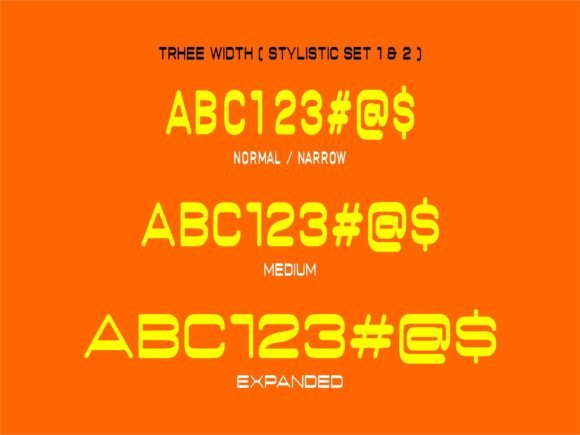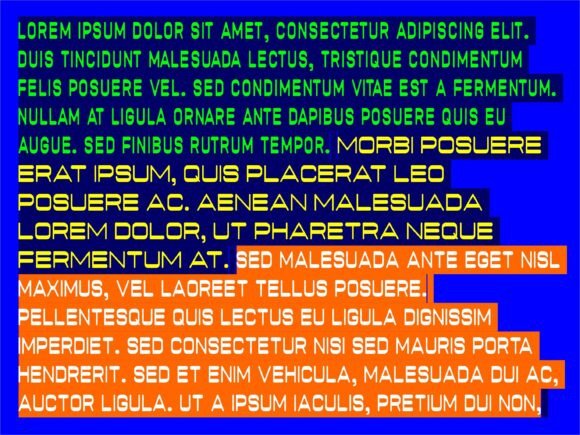
Introducing Embrance Font: Elevate Your Designs with Modern Flair
In the world of typography, fonts play a crucial role in conveying messages, expressing creativity, and setting the tone for a brand or project. For designers, crafters, and anyone looking to make a statement, Embrance Font is an exciting addition to the realm of modern display fonts. With its clean, stylish look, and versatile multiple widths, Embrance is poised to revolutionize the way we approach headlines, posters, and creative projects.
The Essence of Embrance Font
Embrance Font is a contemporary display font designed to make an impact. Its sleek, modern aesthetic is perfect for those seeking to infuse their projects with a fresh, cutting-edge vibe. The font’s design is characterized by its clean lines, stylish curves, and a well-balanced structure that exudes professionalism and sophistication.
Multiple Widths, Endless Possibilities
What sets Embrance Font apart from other display fonts is its range of multiple widths. This feature allows designers to experiment with various layouts, explore different creative avenues, and express their ideas in unique and innovative ways. Whether you’re crafting a bold headline, designing a captivating poster, or developing a cohesive brand identity, Embrance Font offers the flexibility to adapt to your vision.
Perfect for Headlines and Posters
Embrance Font is specifically designed to shine in applications where visual impact is paramount. Its clean and stylish look makes it an ideal choice for headlines, where clarity and readability are essential. Additionally, the font’s modern aesthetic and range of widths ensure that your posters will stand out, grabbing the attention of your audience and leaving a lasting impression.
Unlocking Creative Potential
For designers and crafters, Embrance Font is more than just a typeface – it’s a tool for unlocking creative potential. With Embrance, you can:
- Experiment with different widths to create visually striking compositions
- Pair Embrance with other fonts to develop a unique typographic style
- Use Embrance to add a modern touch to your brand identity or packaging design
- Create stunning posters, flyers, and brochures that capture attention
Why Choose Embrance Font?
In a crowded marketplace, Embrance Font stands out for several reasons:
- Modern Design: Embrance boasts a contemporary look that’s perfect for projects requiring a fresh, modern feel
- Versatility: With multiple widths, Embrance offers endless possibilities for creative expression
- Clean and Stylish: The font’s clean lines and stylish curves ensure it looks great in any application
- Easy to Read: Despite its modern aesthetic, Embrance remains clear and readable, even at larger sizes
Embrance Font is a game-changer for designers, crafters, and anyone looking to elevate their creative projects with a modern display font. Its clean, stylish look, combined with its versatile range of widths, makes it an indispensable tool for creating stunning headlines, posters, and more. Whether you’re aiming to make a bold statement or add a contemporary touch to your designs, Embrance Font is the perfect choice. Embrace the possibilities with Embrance and discover a new world of typographic creativity.